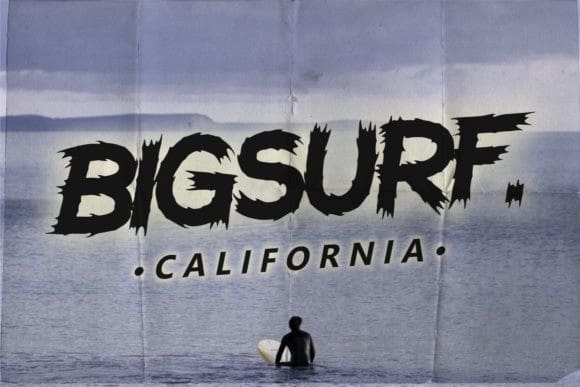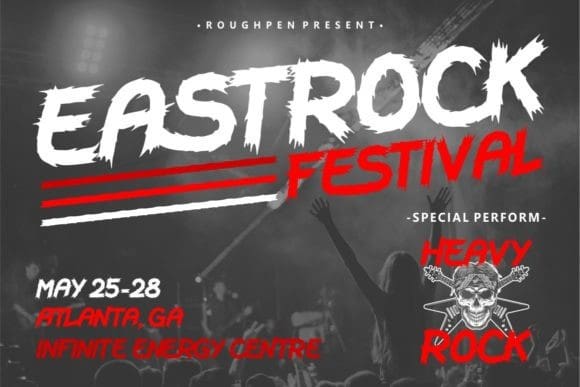
Roughpen Brush Font
Roughpen Brush Font is a bold, hand-drawn display font. It features some stunning custom hand-drawn brush looks that will make each of your projects seem incredibly unique and stylish! This font is PUA encoded which means you can access all of the glyphs and swashes with ease!